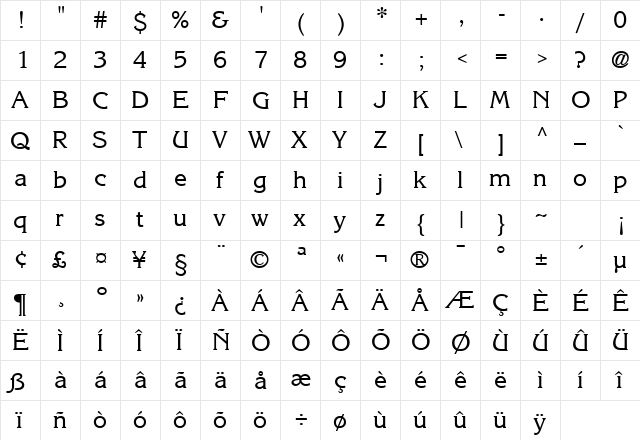
KarlaJohnson5 RegularSH
Design Context for KarlaJohnson5 Typeface
KarlaJohnson5 takes a measured approach to typography — its balanced proportions and neutral character make it a reliable workhorse for both digital and print work.